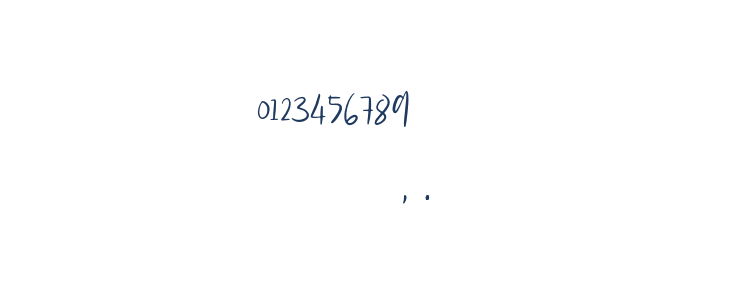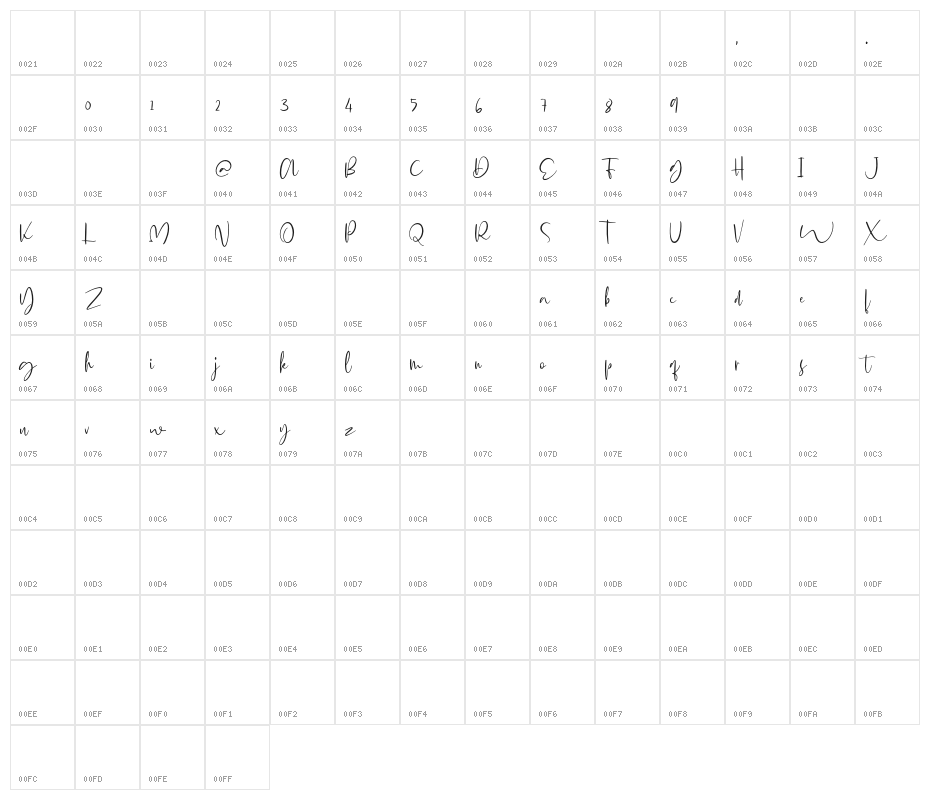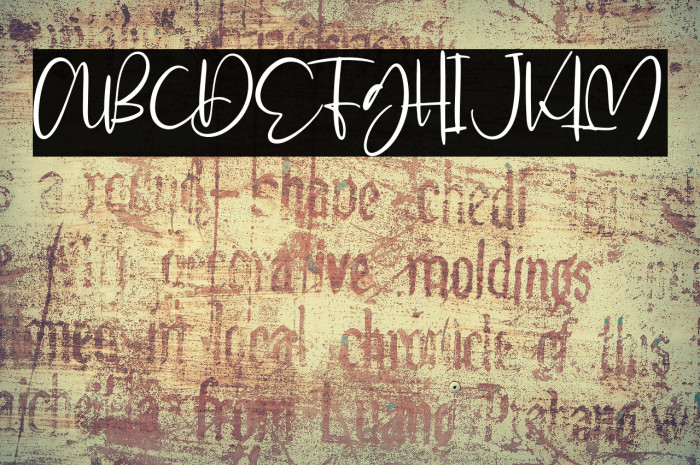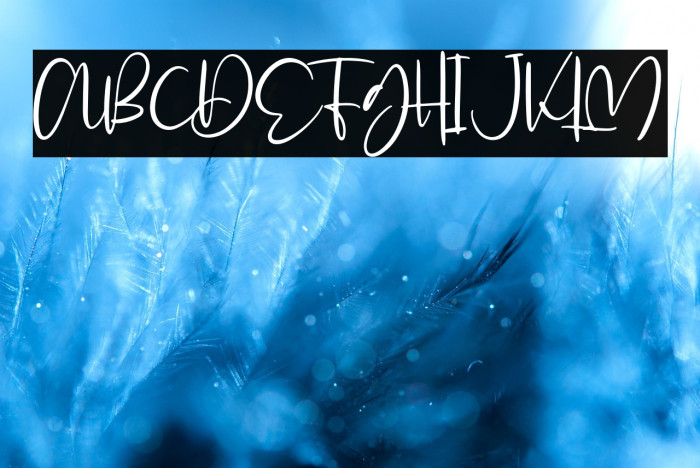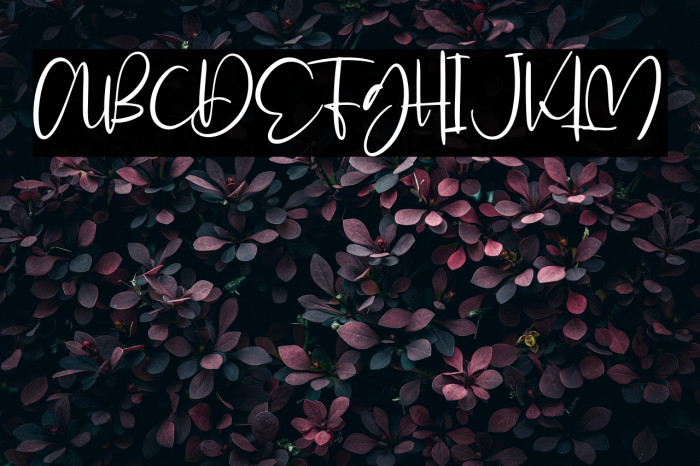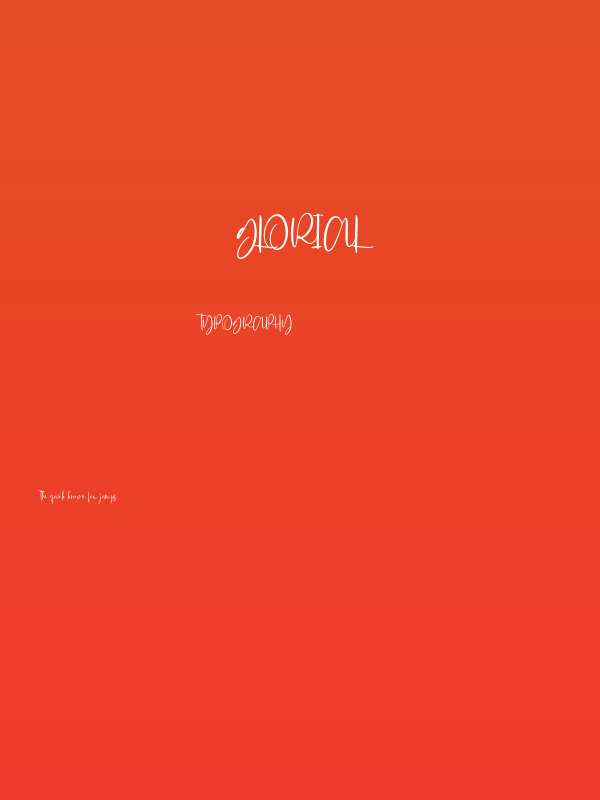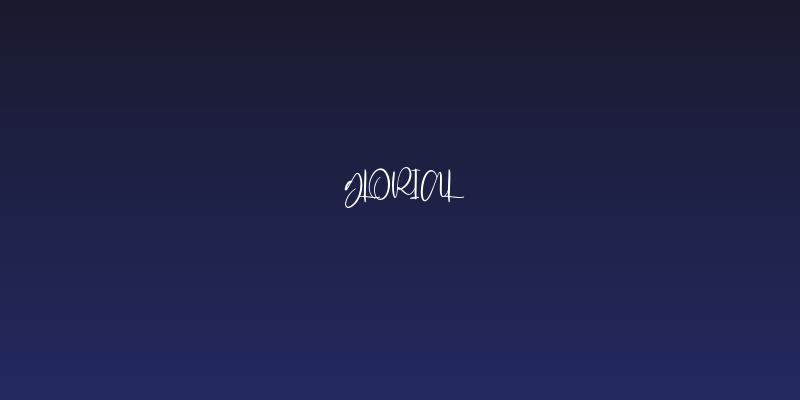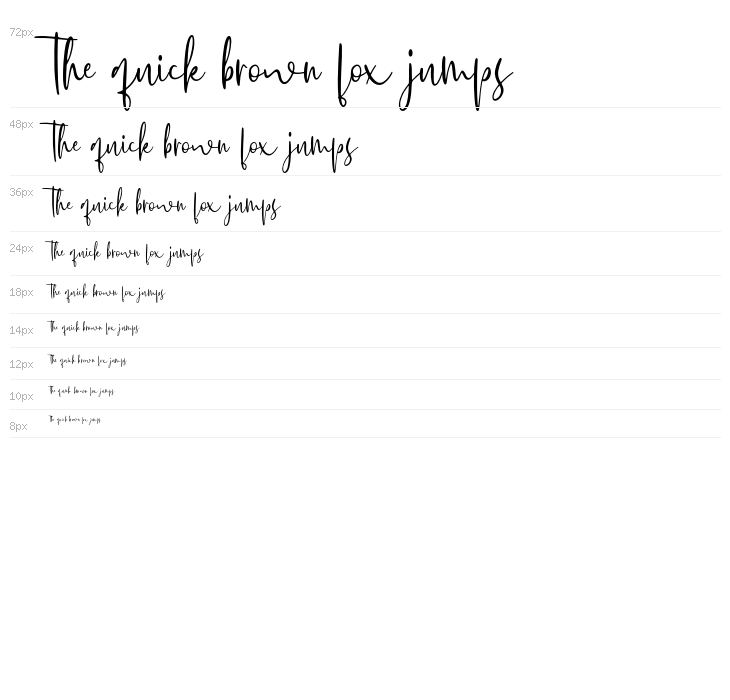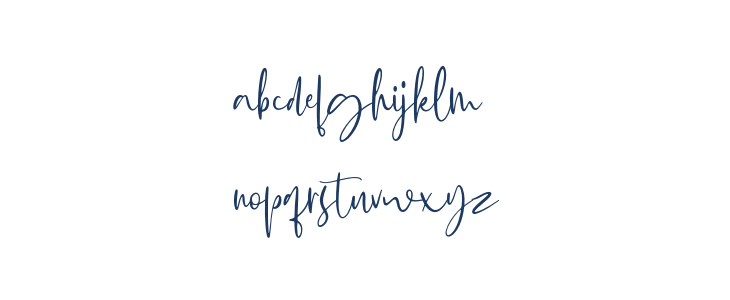
Glorial Font
Glorial Description
This font features a lively and expressive handwritten style, characterized by its fluid and dynamic strokes. The uppercase letters exhibit a playful yet elegant flair, with varying line thickness that adds a sense of movement and personality. The lowercase letters maintain a consistent flow, enhancing readability while retaining the font's unique charm. Numbers and special characters are crafted with the same attention to detail, ensuring a cohesive look across all elements. This font's artistic nature makes it ideal for creative projects that require a personal touch.